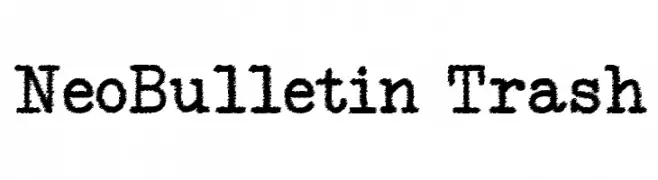
A vintage, typewriter-inspired font with a textured, worn appearance.
A vintage typewriter-style font with a bold, distressed appearance.
A vintage typewriter-style font with rugged, irregular letterforms.